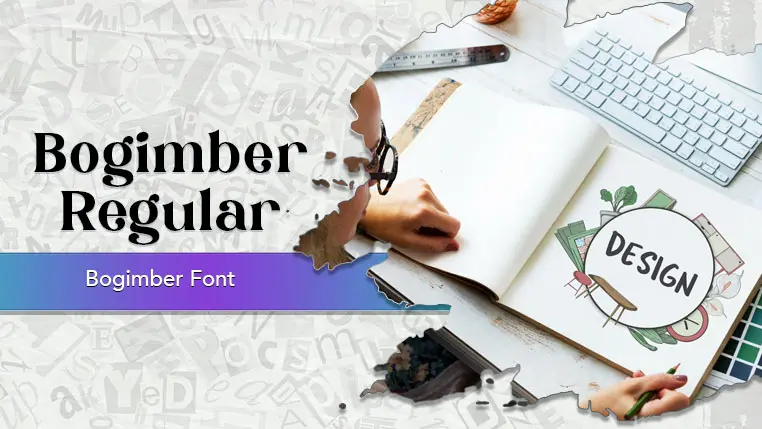
The Bogimber font family may be ideal for you if you enjoy working on an artistic design project. The lively, expressive look of this typeface, which was created by Peter Olexa, makes it ideal for Branding and Logo Design(Bogimber is highly recommended for branding projects that aim for a sophisticated, elegant, or luxury aesthetic, while also having a trendy or artistic edge.) . Its distinctive appearance makes it excellent for headlines in magazines, editorial layouts, websites, and posters where you want to make a statement and convey a sense of elegance or fashion. Especially for premium or artisanal products where a touch of elegance and distinctiveness is desired. and other light-hearted visual projects.
Regular are the one primary font styles of the Bogimber font family. You may build dynamic, visually appealing text layouts with the distinct flair that each style offers. With crisp, readable lines and a relaxed tone.